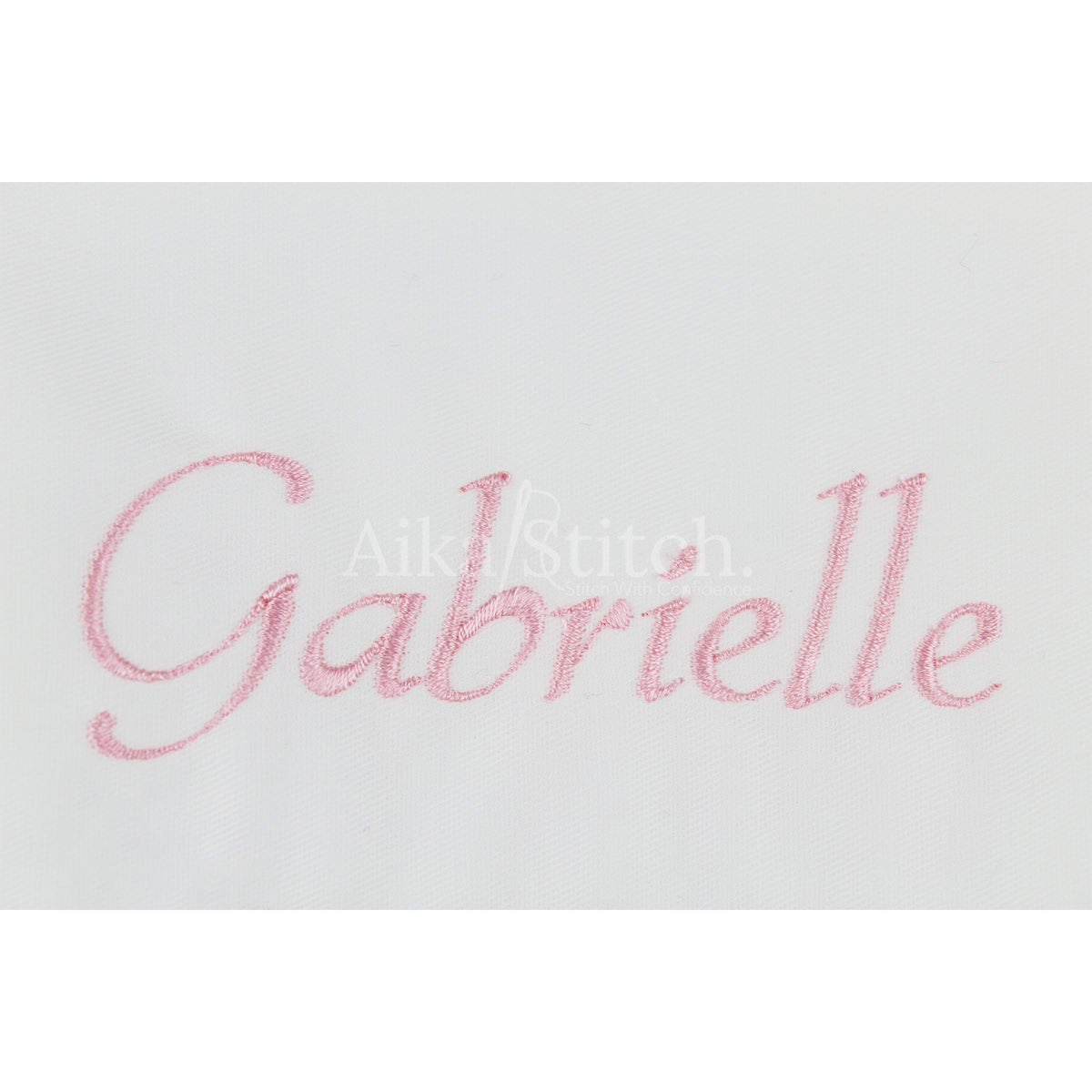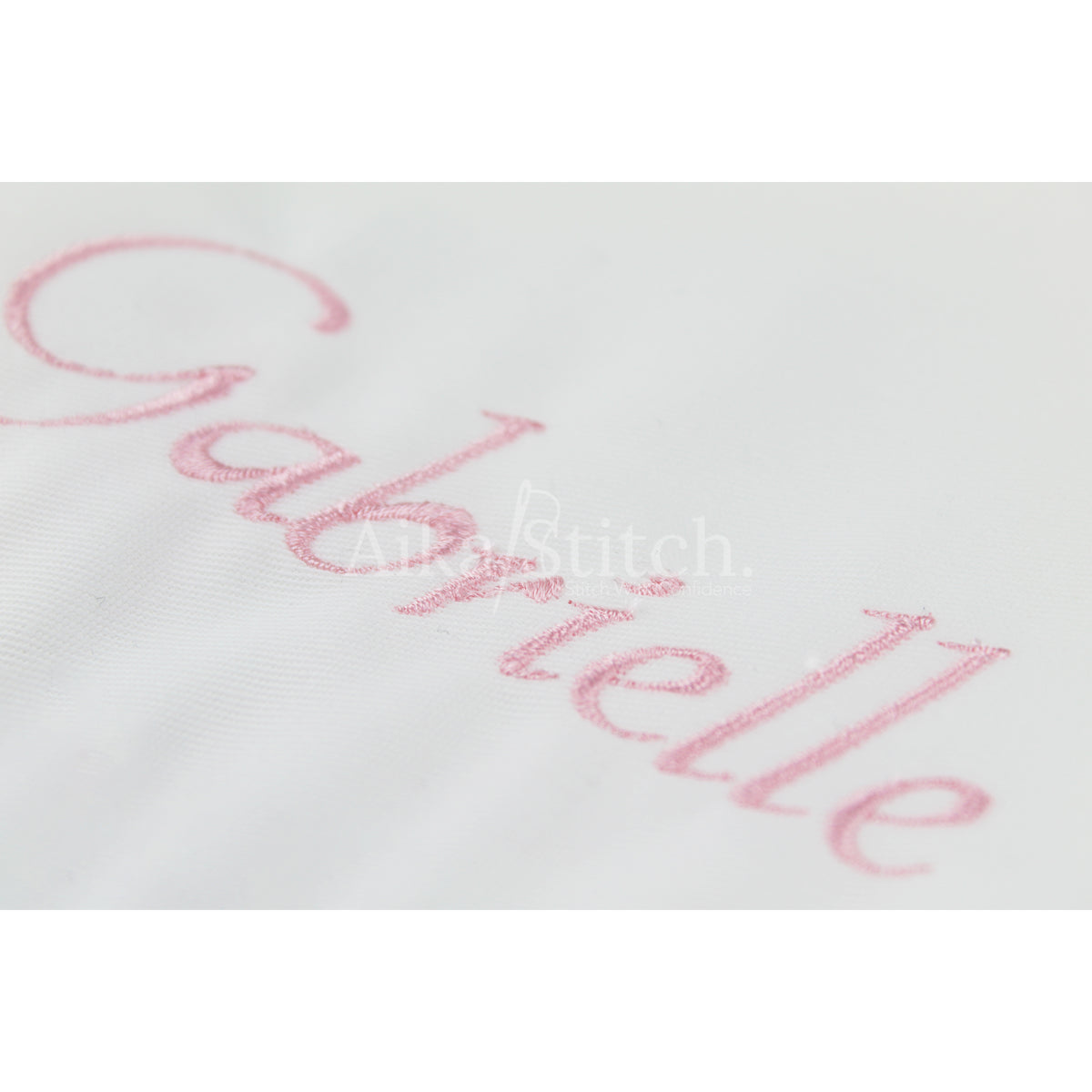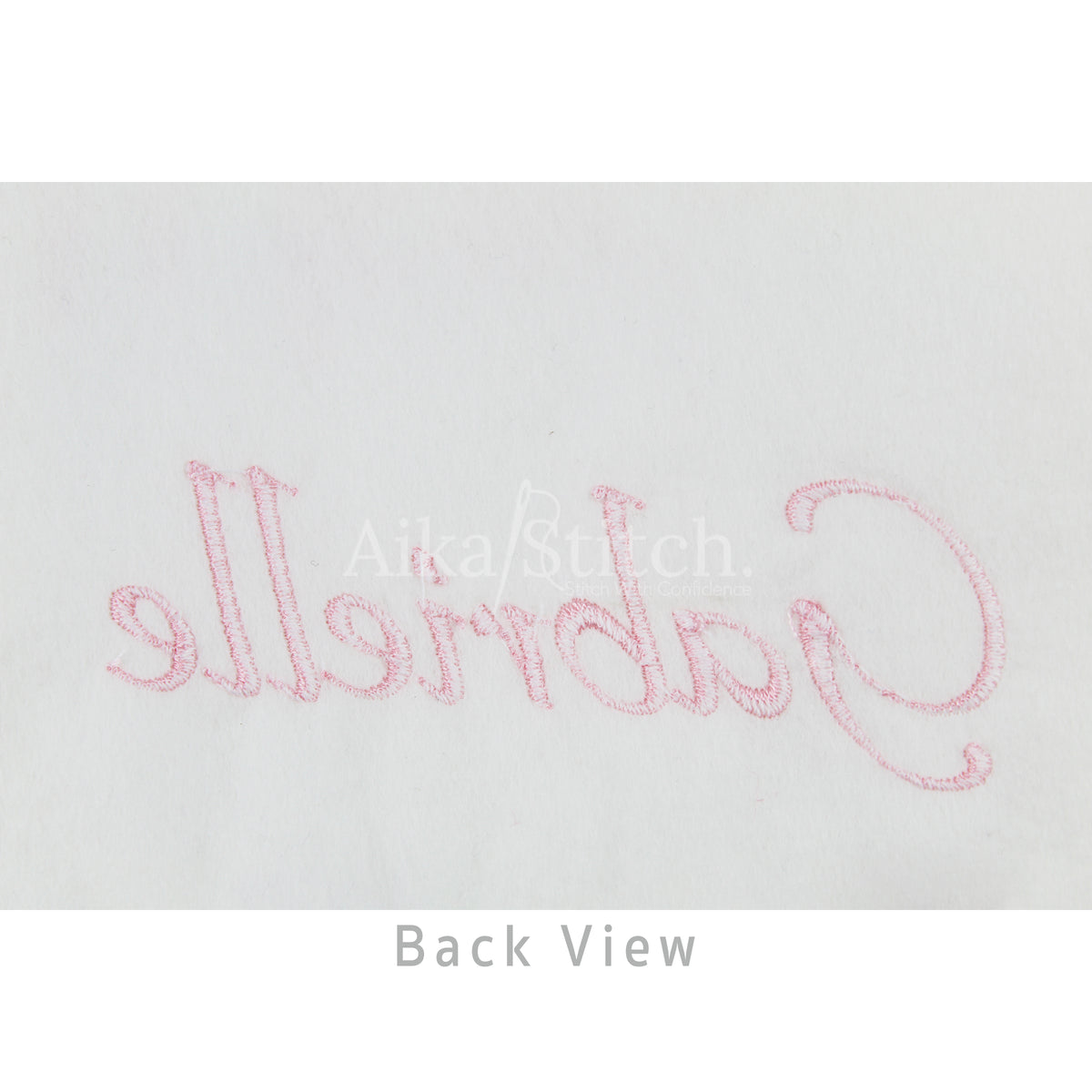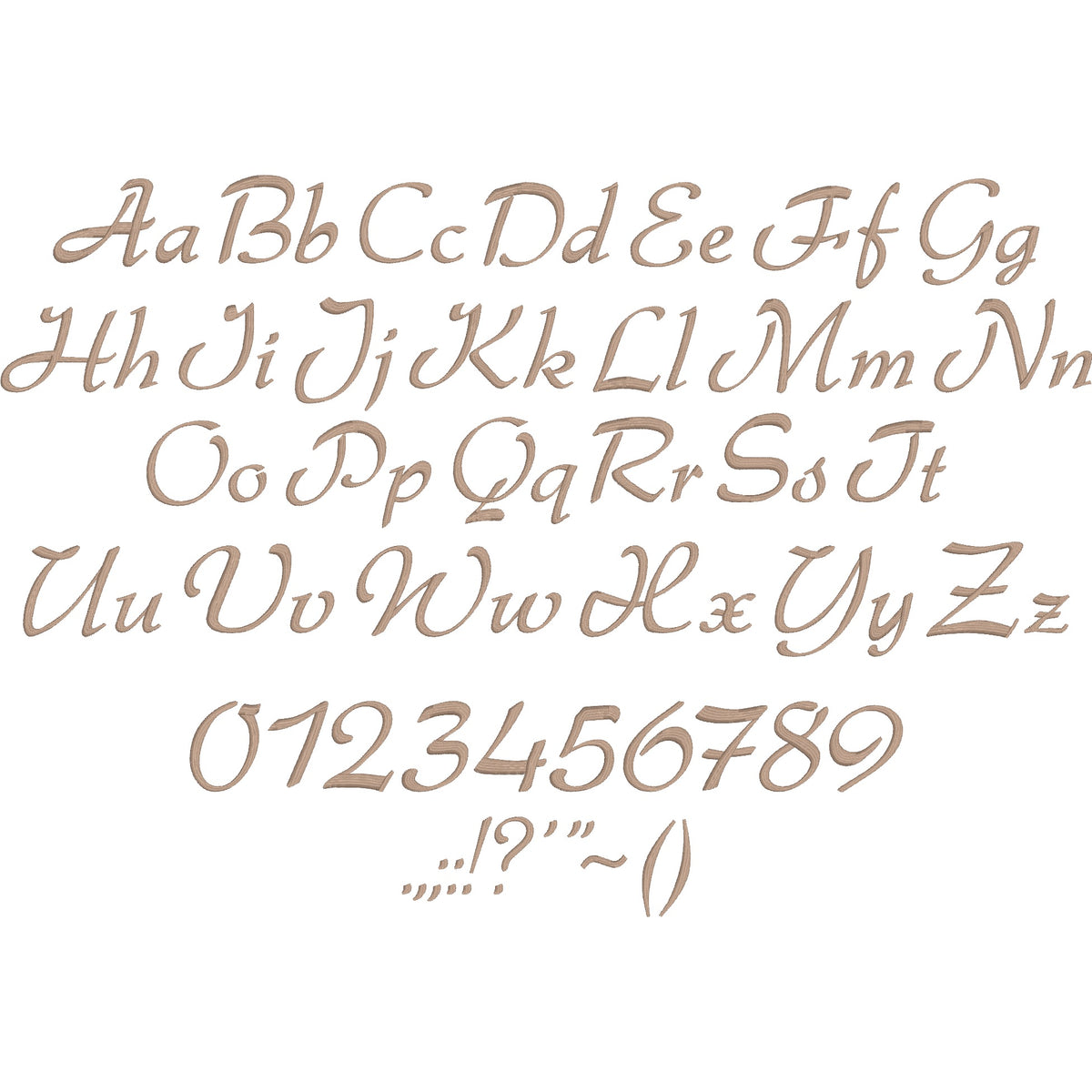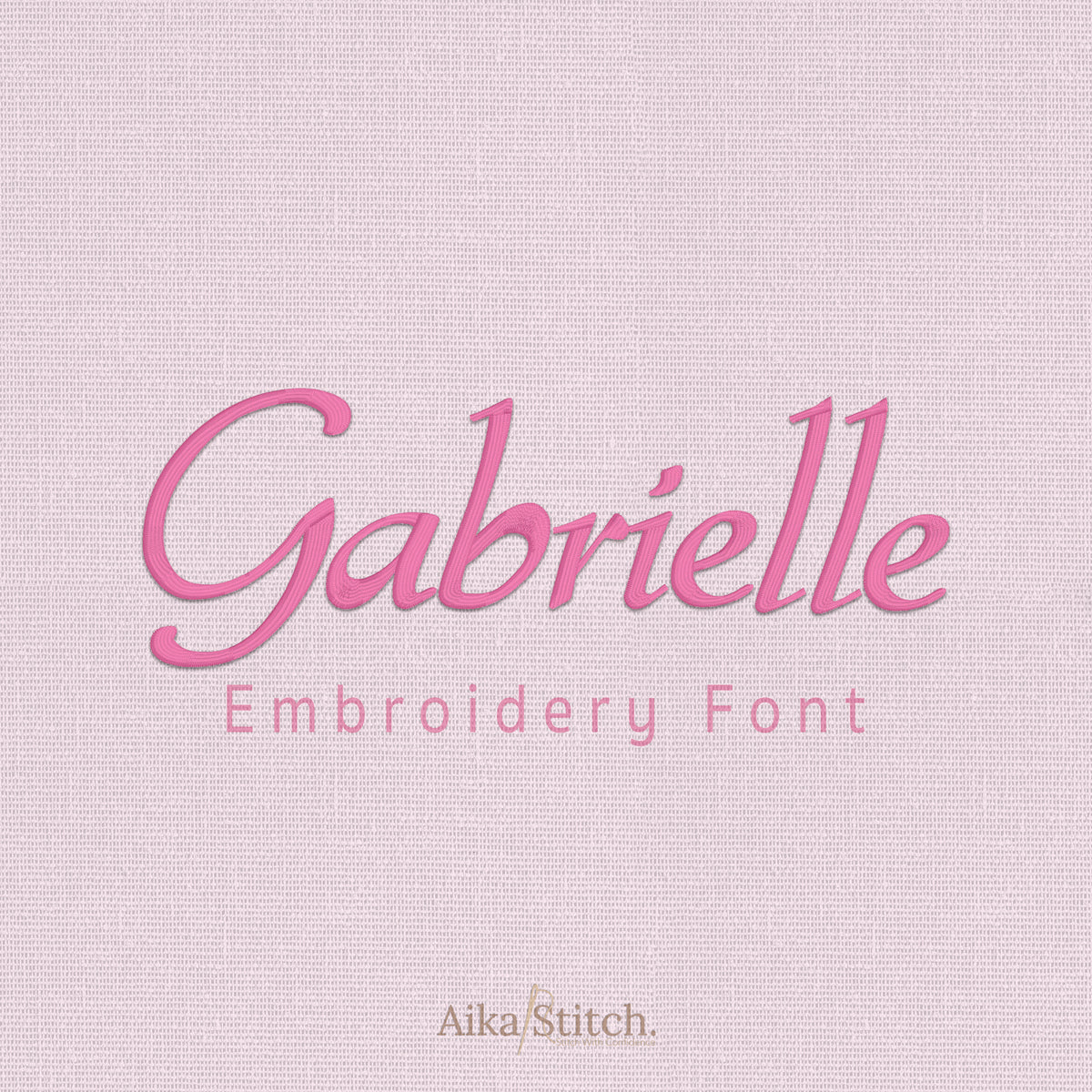
Gabrielle Script Calligraphy Embroidery Font | Native BX Included
Gabrielle is a Script Calligraphy machine embroidery font featuring beautiful satin stitch lettering. Perfect for shirts, towels, hats, baby gifts, monograms, and small business embroidery projects.